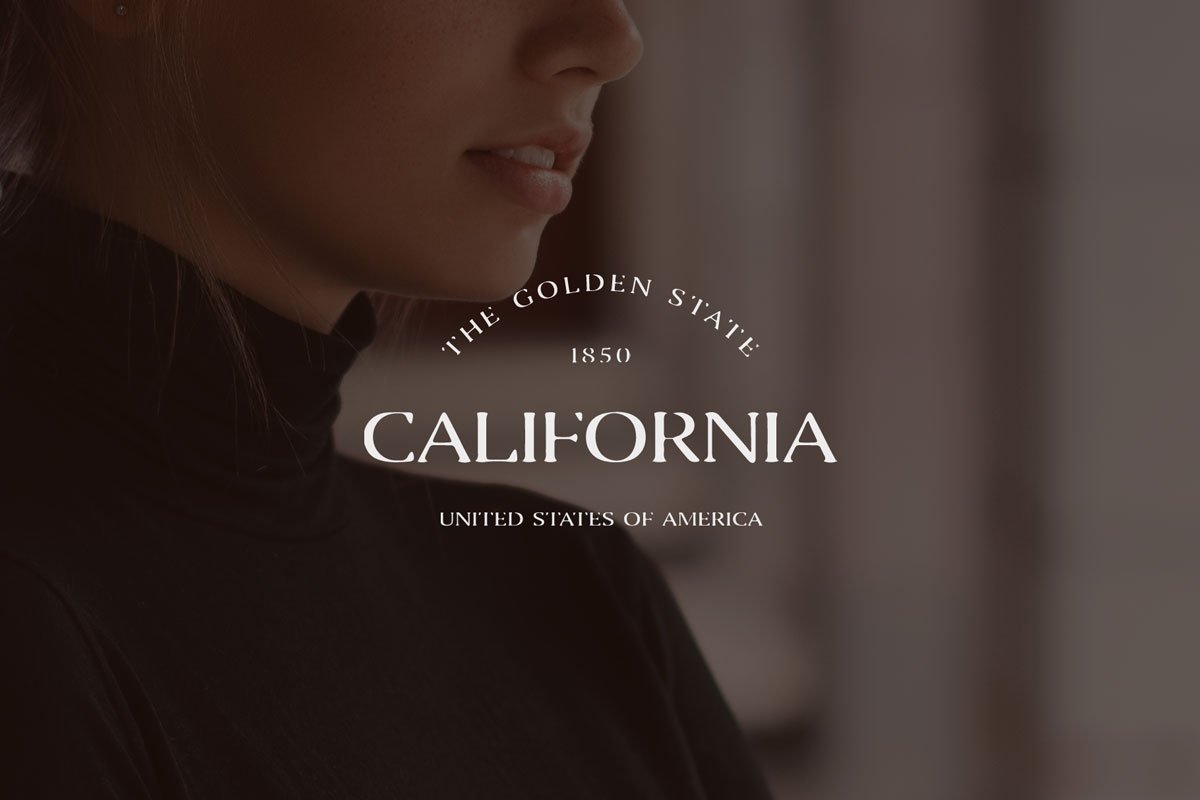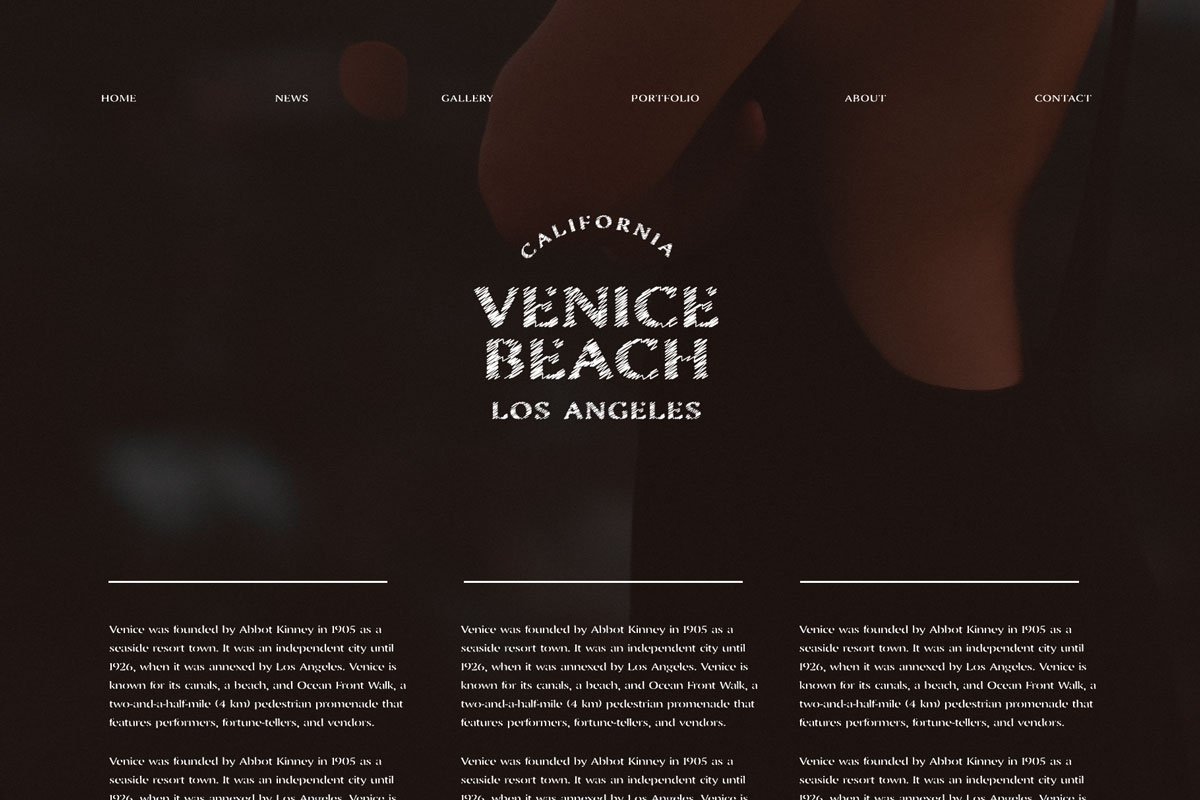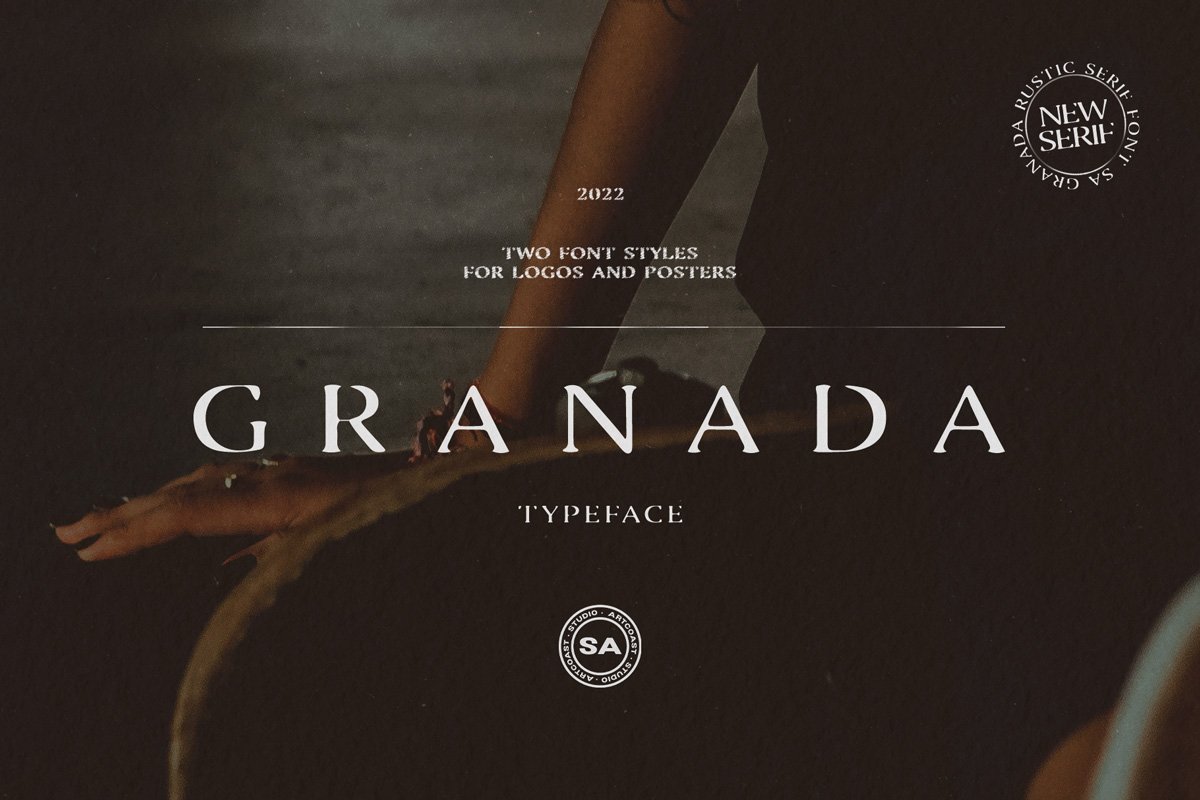
SA Granada Retro Serif Font - Elegant Typeface for Designers
SA Granada is a versatile rustic serif font crafted with designers in mind. Its hand-lettered charm brings character and vibrancy to branding, logos, magazine titles, and fashion photography. This unique typeface strikes the perfect balance between expressiveness and sophistication, adding a modern, elegant touch to any design. Perfect for stationery, invitations, greeting cards, social media graphics, and all types of websites, SA Granada elevates every project with its timeless appeal.
• uppercase and lowercase letters
• numbers
• punctuation